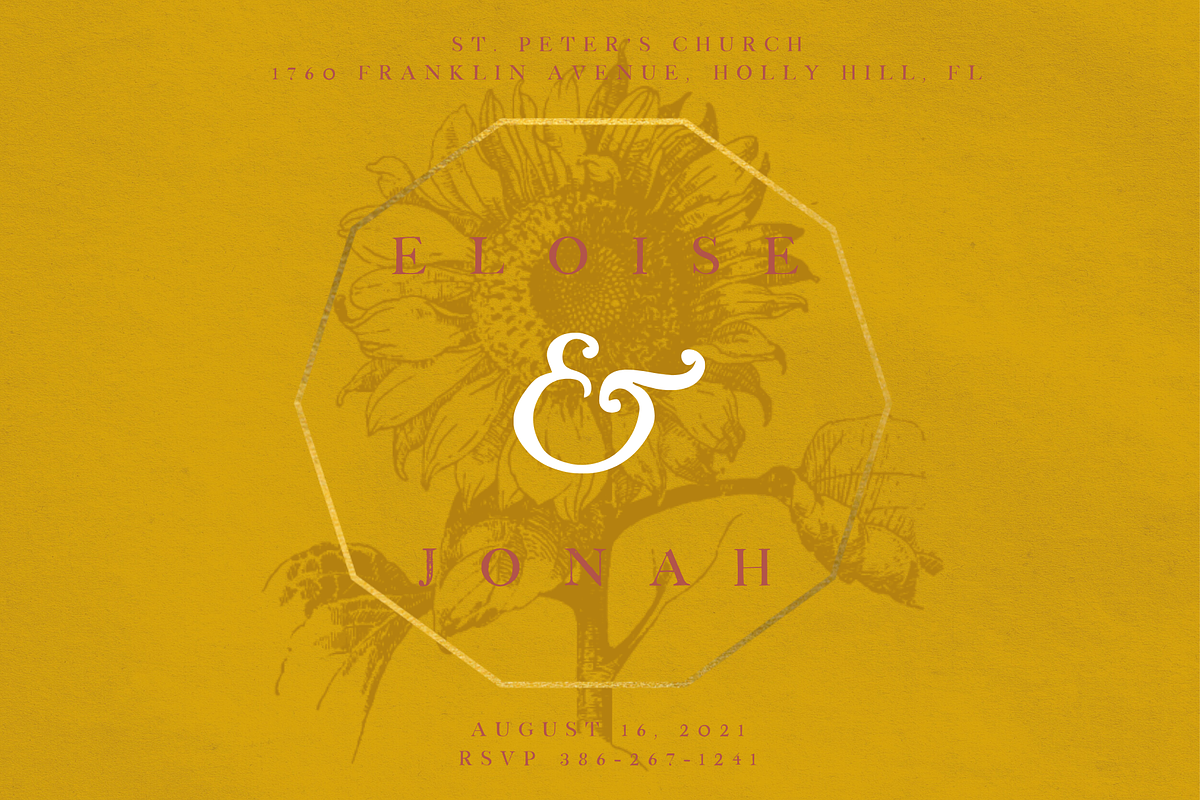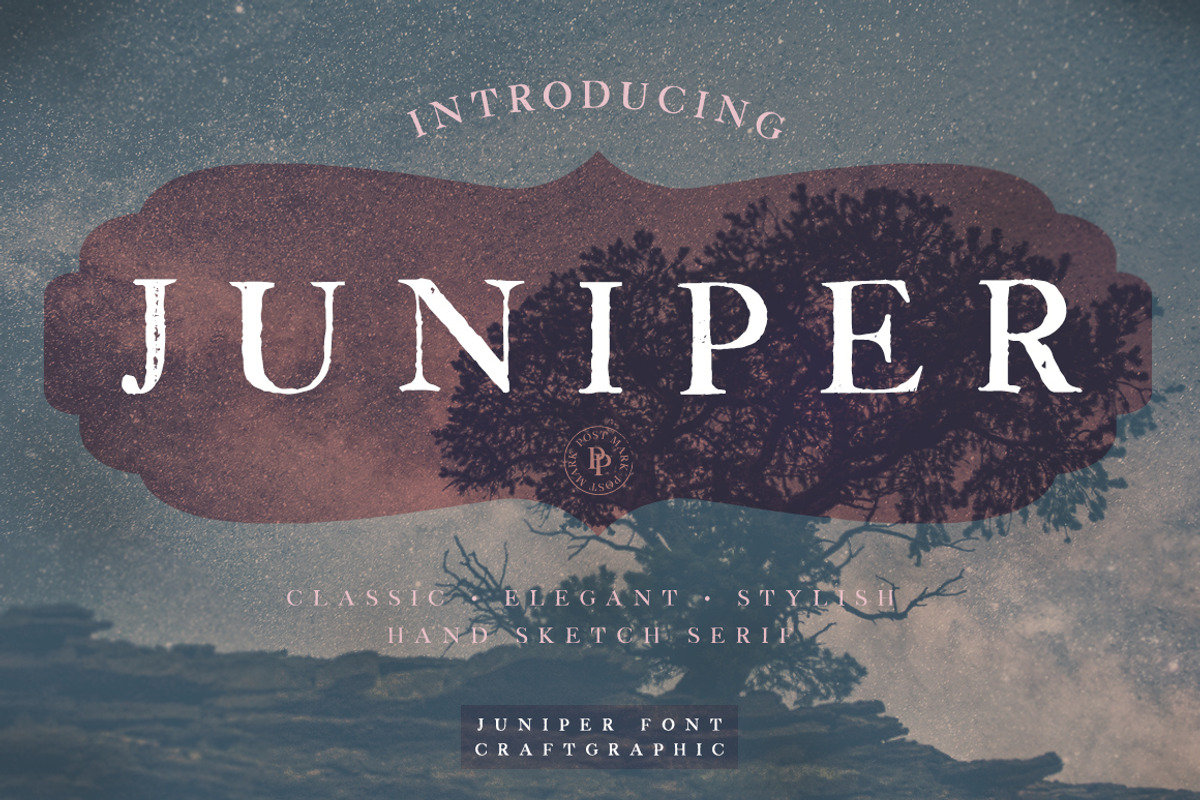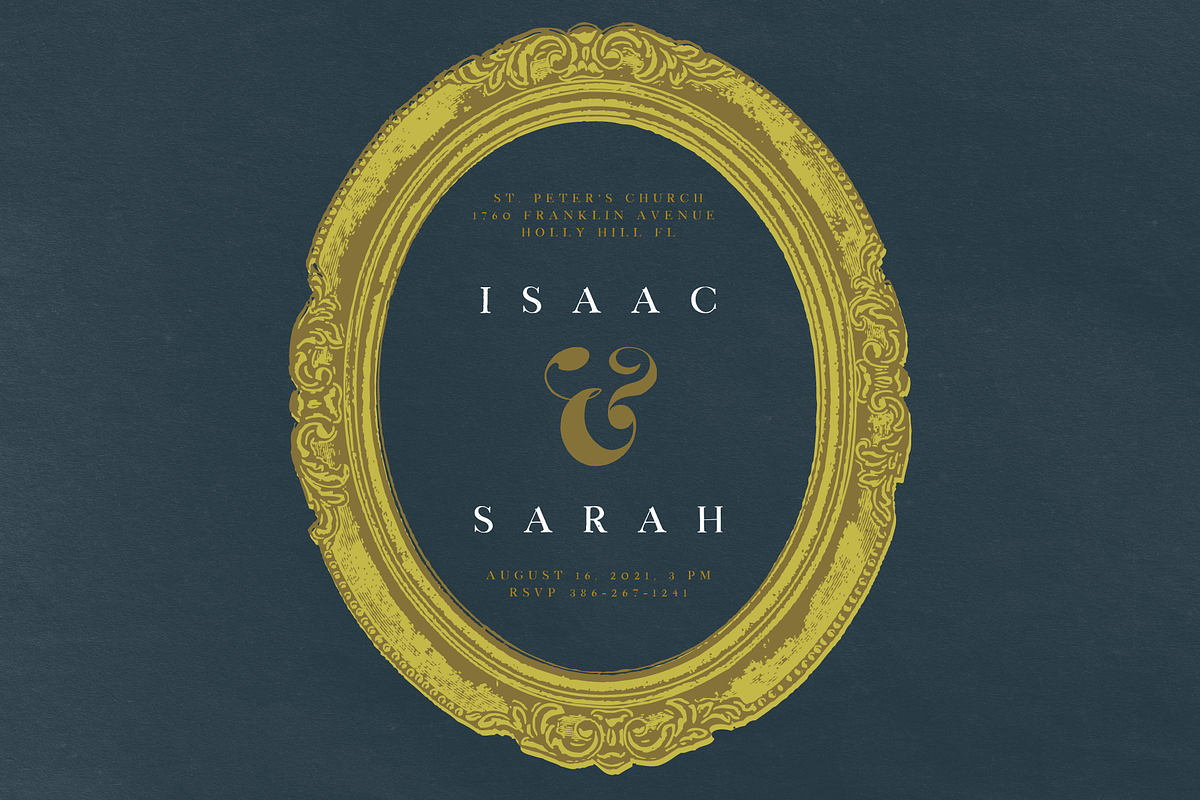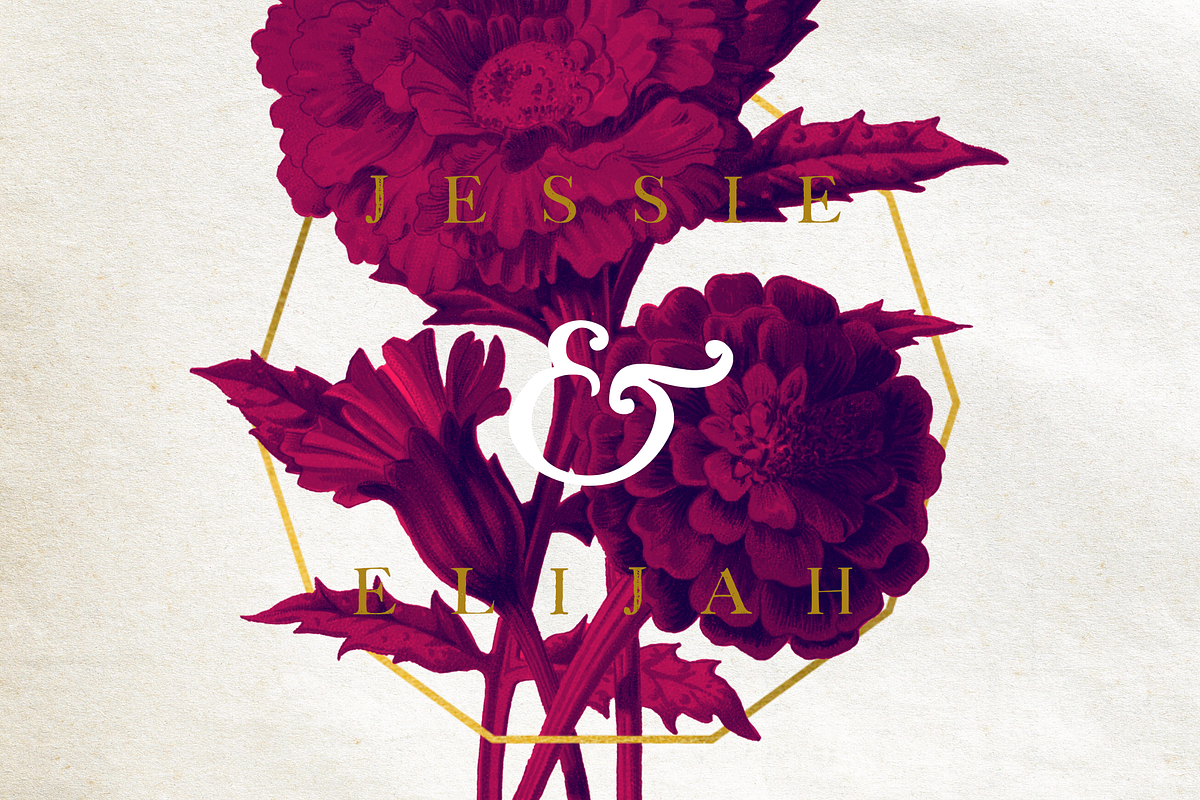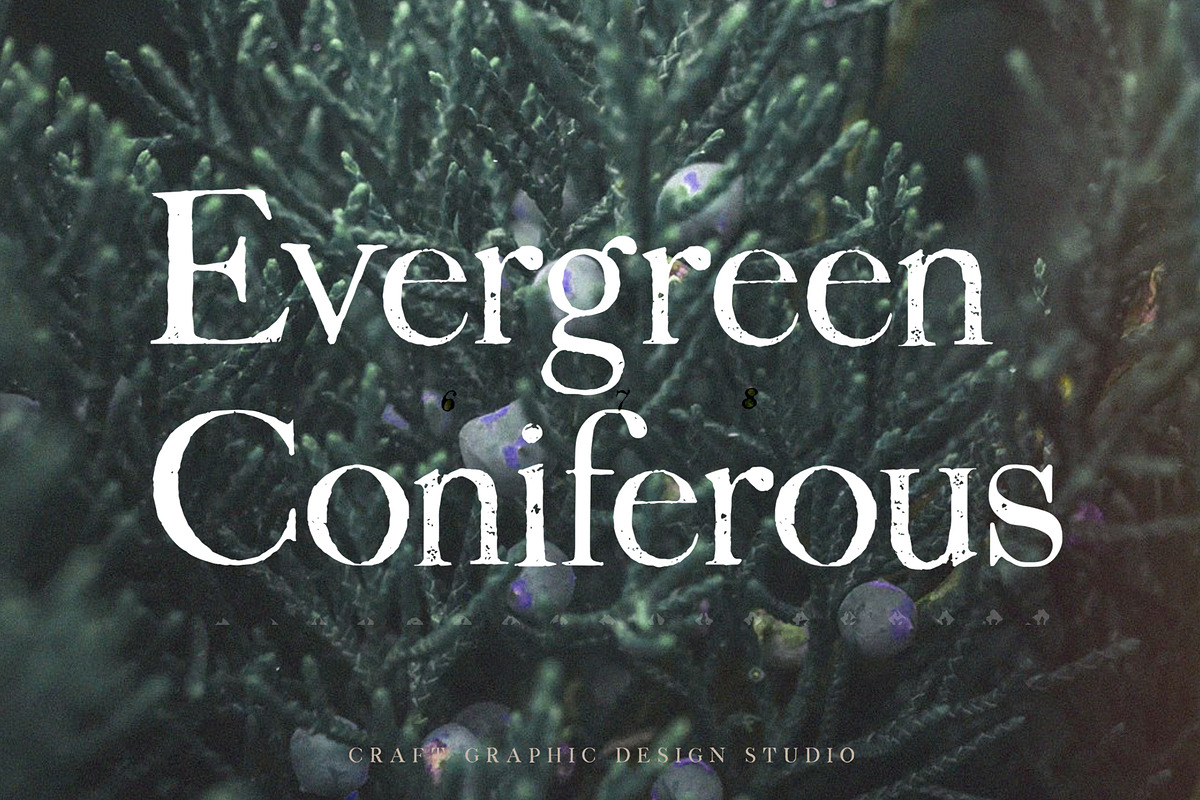
Juniper Vintage Serif Font
Juniper Vintage Serif Font | Hand-Drawn, Elegant Typeface with Retro Charm
Introducing Juniper Vintage Serif, a meticulously crafted, hand-drawn serif font that brings the timeless elegance of vintage typography into your modern design projects. With its retro charm and delicate details, Juniper is perfect for:
- Branding
- Logos
- Packaging
- Invitations
- Posters
- Editorial design
Each letter is designed with subtle imperfections, giving it a unique, organic feel that adds character to any project.
- Uppercase and lowercase letters
- Perfect for both retro and modern designs
Whether you're working on a vintage-inspired logo, wedding invitations, or editorial design, Juniper Vintage Serif Font will give your project a handcrafted, bespoke touch. Elevate your designs with this timeless typeface.